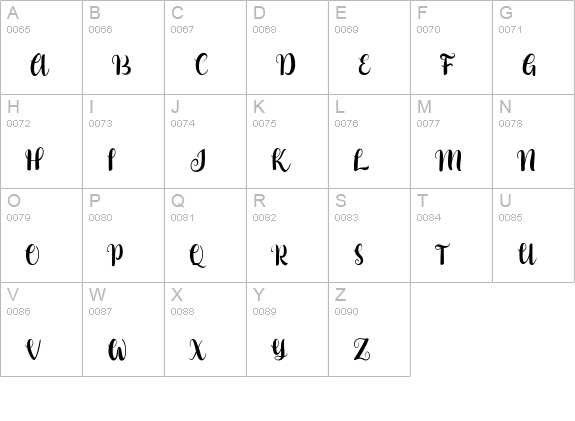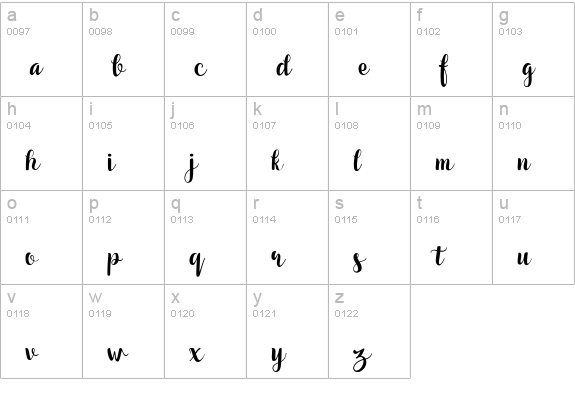
Jelantik Font Details
Jelantik is a demo font in the Script > Cursive category, designed by patria_typestudio. It has been downloaded 200 times and is available for Windows, Mac and Linux.
Jelantik font is a modern and stylish typeface that exudes elegance and sophistication. Its sleek lines and clean shapes make it perfect for a wide range of design projects, from branding to editorial layouts. With its unique personality and versatility, Jelantik font is sure to make your designs stand out.